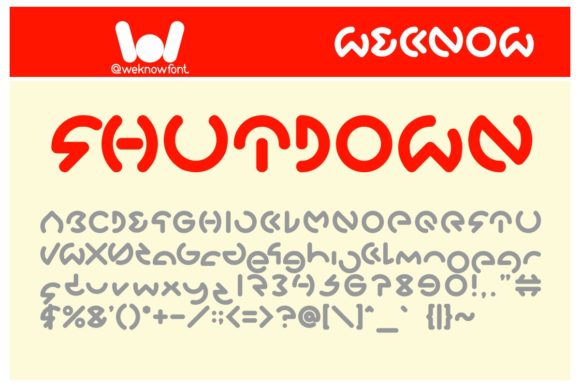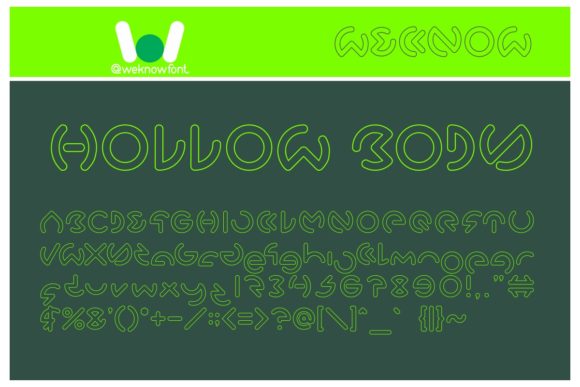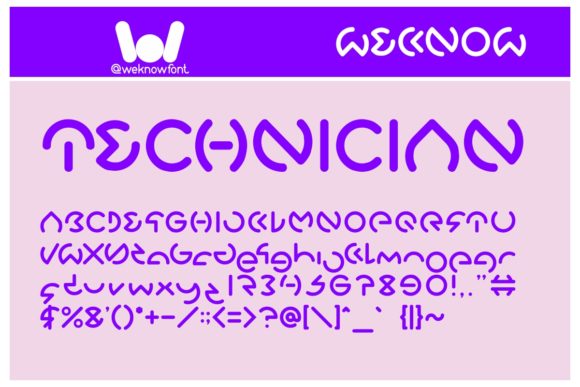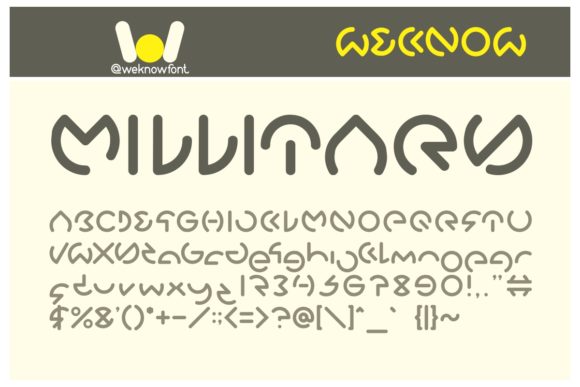
Discover the Futuristic Charm of Gabrielle Font
Are you looking for a font that can add a touch of elegance and sophistication to your creative projects? Look no further than Gabrielle Font, a fancy and futuristic display font that’s sure to make your designs stand out. In this article, we’ll explore the features and benefits of Gabrielle Font, and show you how to incorporate it into your design workflow.
What is Gabrielle Font?
Gabrielle Font is a modern, sans-serif display font that’s designed to make a statement. Its sleek lines, futuristic curves, and elegant proportions make it perfect for use in a variety of creative projects, from branding and advertising to packaging and digital media. With its unique blend of style and sophistication, Gabrielle Font is sure to capture the attention of your audience and leave a lasting impression.
Key Features of Gabrielle Font
- Futuristic Design: Gabrielle Font features a futuristic design that’s perfect for projects that require a modern and edgy look.
- Elegant Proportions: The font’s elegant proportions make it easy to read and understand, even at large sizes.
- Sleek Lines: Gabrielle Font’s sleek lines and curves give it a sophisticated and high-end feel.
- Highly Versatile: The font is highly versatile and can be used in a variety of creative projects, from digital media to print materials.
Benefits of Using Gabrielle Font
So why should you choose Gabrielle Font for your next project? Here are just a few benefits of using this amazing font:
- Adds Visual Interest: Gabrielle Font adds a touch of elegance and sophistication to your designs, making them more visually appealing and engaging.
- Improves Readability: The font’s clear and elegant design makes it easy to read and understand, even at large sizes.
- Increases Brand Recognition: By using a unique and distinctive font like Gabrielle, you can create a strong brand identity that sets you apart from the competition.
- Perfect for Creative Projects: Gabrielle Font is perfect for use in creative projects, such as branding, advertising, packaging, and digital media.
How to Use Gabrielle Font in Your Designs
Using Gabrielle Font in your designs is easy. Here are a few tips to get you started:
- Use it as a Display Font: Gabrielle Font is perfect for use as a display font, where it can be used to add a touch of elegance and sophistication to your designs.
- Experiment with Different Sizes: Try using Gabrielle Font at different sizes to see how it looks in various contexts.
- Pair it with Other Fonts: Gabrielle Font pairs well with other fonts, so feel free to experiment with different font combinations to create a unique look.
- Use it in Digital Media: Gabrielle Font is perfect for use in digital media, such as social media graphics, videos, and websites.
In conclusion, Gabrielle Font is a fancy and futuristic display font that’s perfect for adding a touch of elegance and sophistication to your creative projects. With its sleek lines, elegant proportions, and highly versatile design, Gabrielle Font is sure to make your designs stand out. So why wait? Add Gabrielle Font to your design workflow today and see the difference it can make!